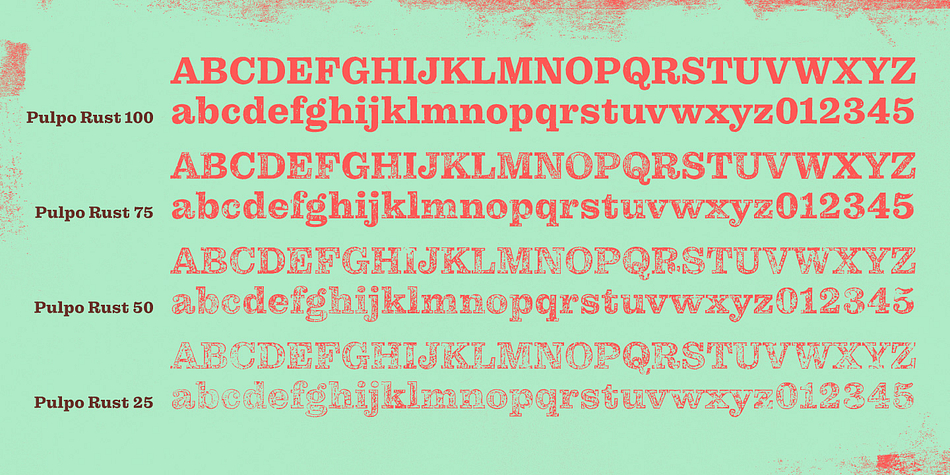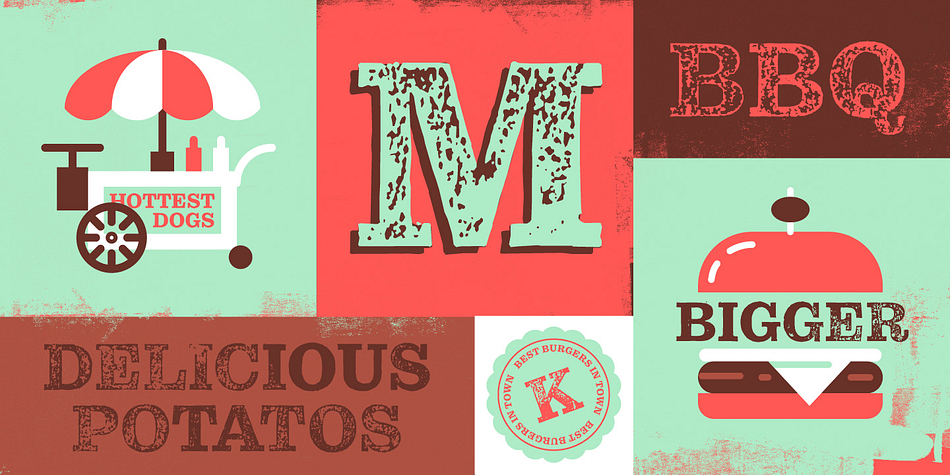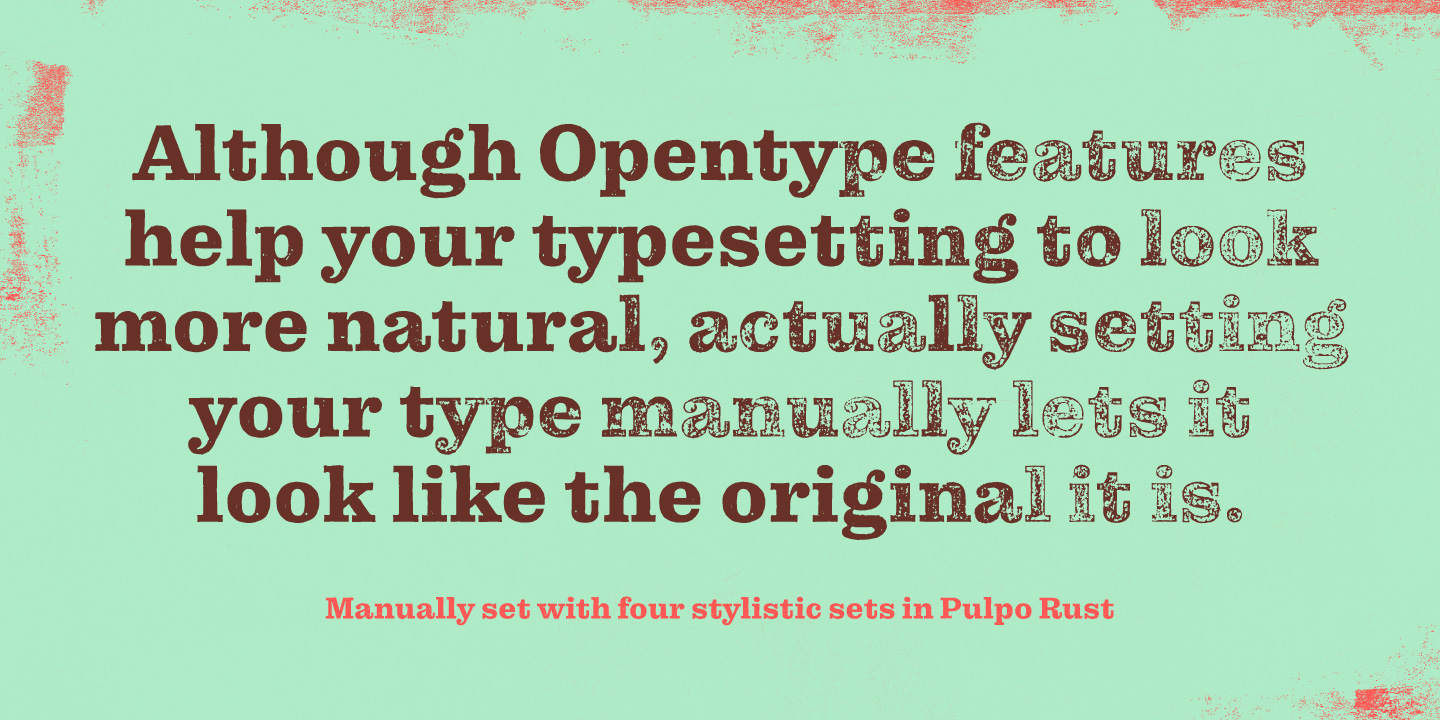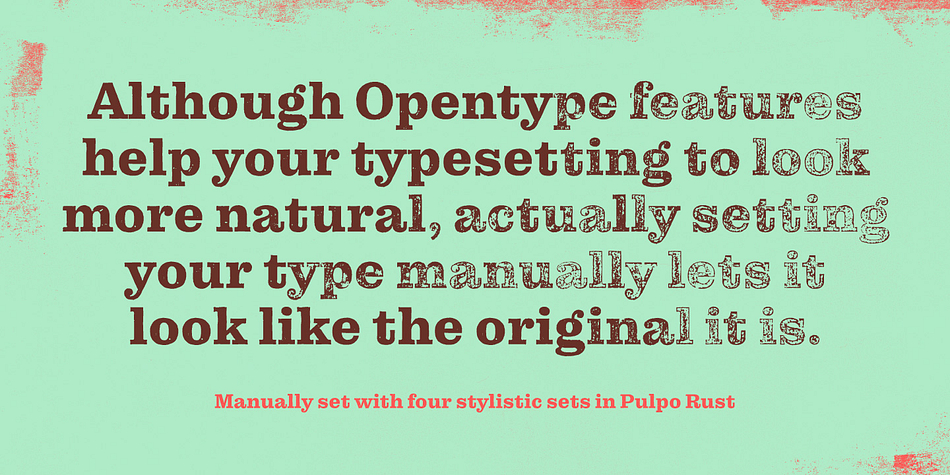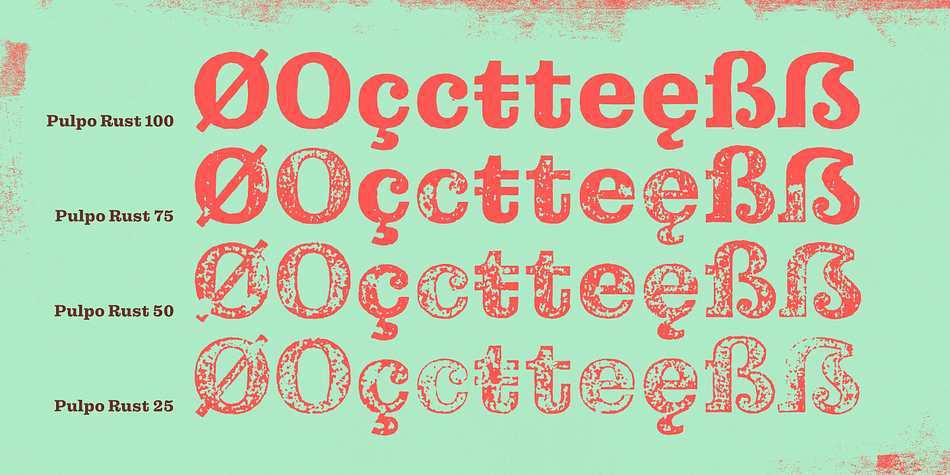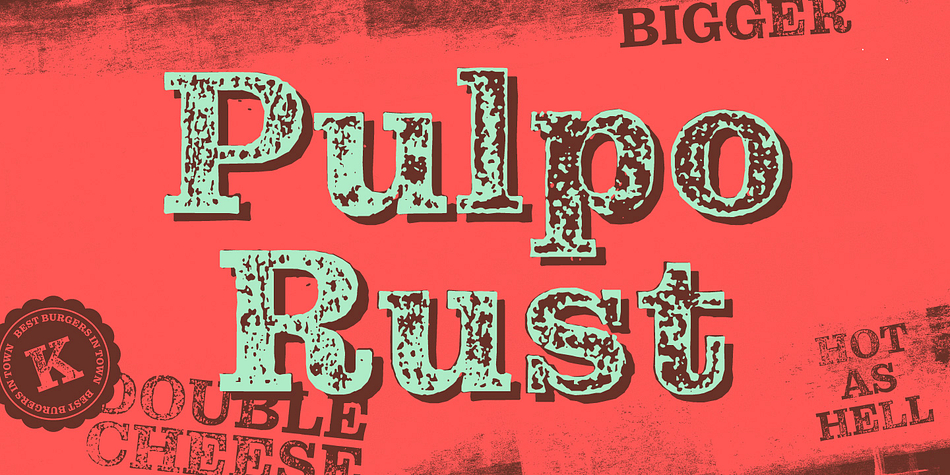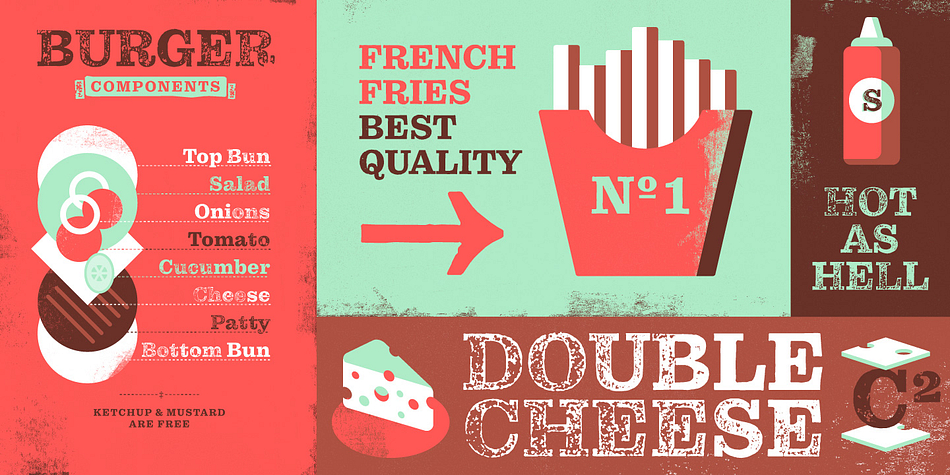
Designed by Felix Braden, Pulpo Rust is a multiple classification font family. This typeface has four styles and was published by Floodfonts.
Pulpo Rust (aka Kontiki) digitally simulates a handmade woodprint and offers four different qualities of print for each of the 560 characters. To create Pulpo Rust, 193 glyphs were manually cut into five wooden plates and carefully printed by hand. From countless test prints, the most charming four were selected and digitized. Pulpo Rust offers a designer the possibility to create a printed image that is very close to a traditional woodprint, but is less expensive to produce an easier to correct. As the warmth of manually printed matter has become a sign of quality and good taste, Pulpo Rust is quite useful for packaging, editorial and corporate design.